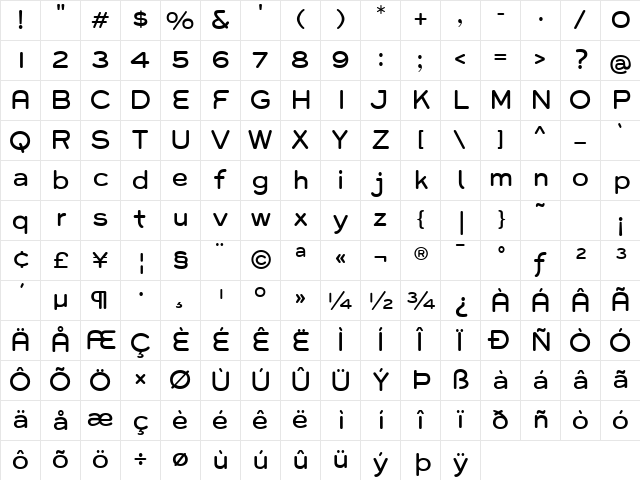
Grover Regular
Design Context for Grover
Grover is a composed and adaptable typeface that performs quietly and consistently across a wide range of design contexts.